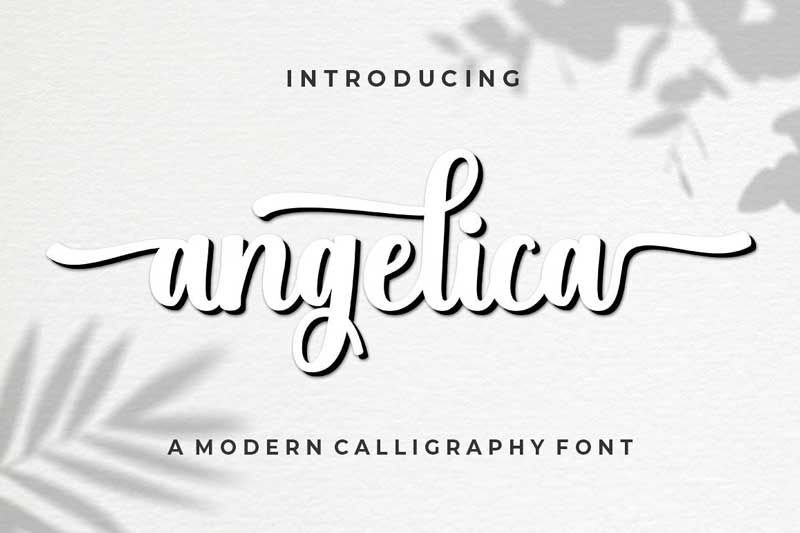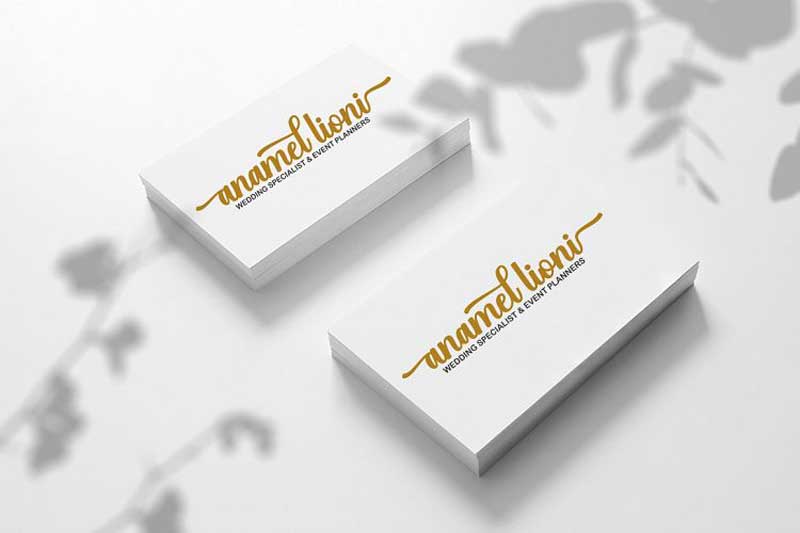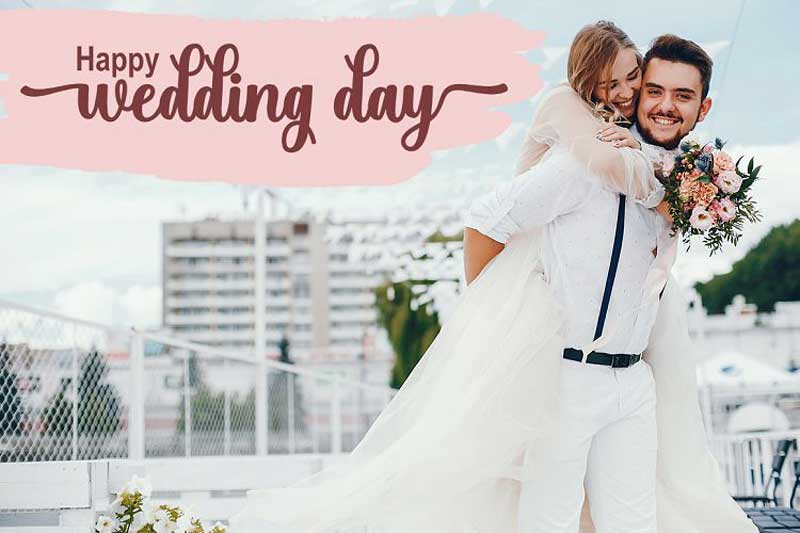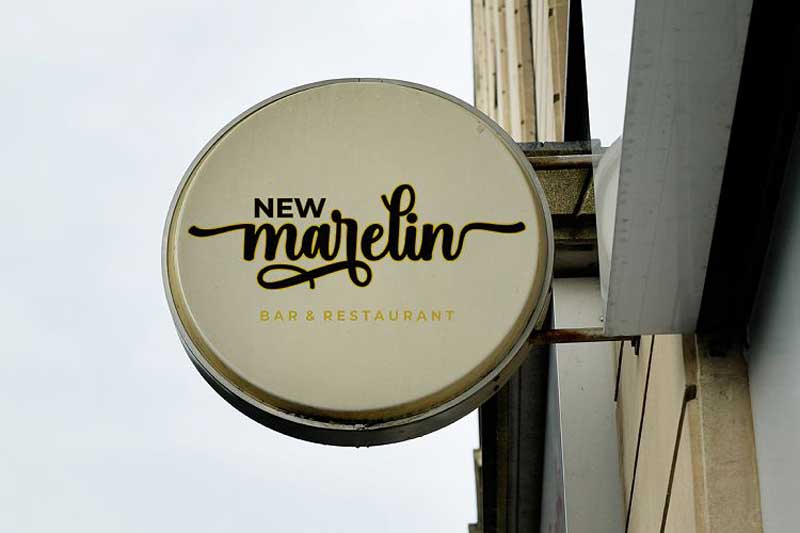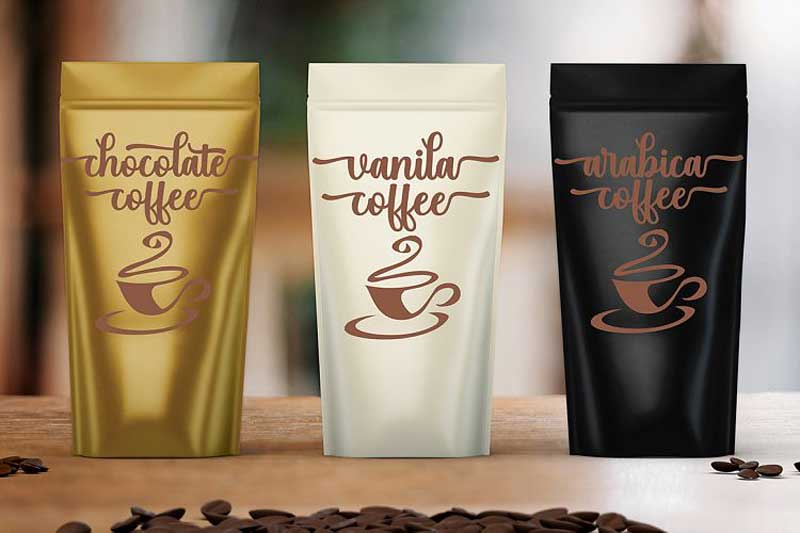
Angelica Script Font Family
Introducing Angelica is a modern script font created with a brush and ink, bold and irregular baseline. It contains a complete set of lowercase, uppercase, alternates, ligatures, punctuation, numbers, and multilingual support. Get some inspiration from the preview above.
Angelica is perfect for use in watercolor design or lettering style bold hands, such as blog header, branding, t-shirt, weddings, social media, product design, stationery, advertising, apparel, cover books, business cards, greeting cards, branding, merchandise, invitations and handmade quotes and more.